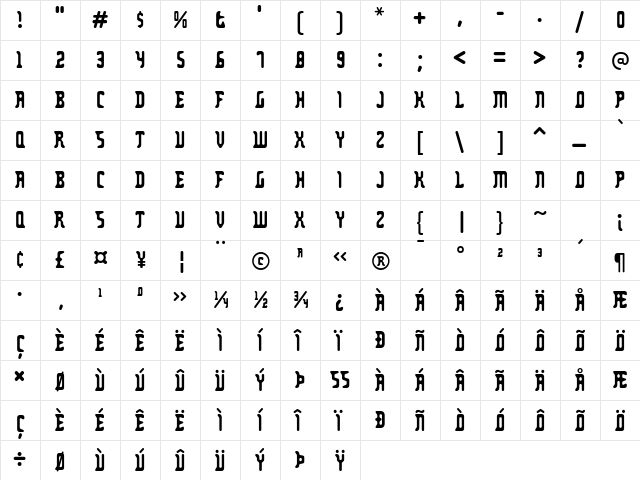
Zodillin Regular
Design Context for Zodillin Typeface
Zodillin is a composed and adaptable typeface that performs quietly and consistently across a wide range of design contexts.